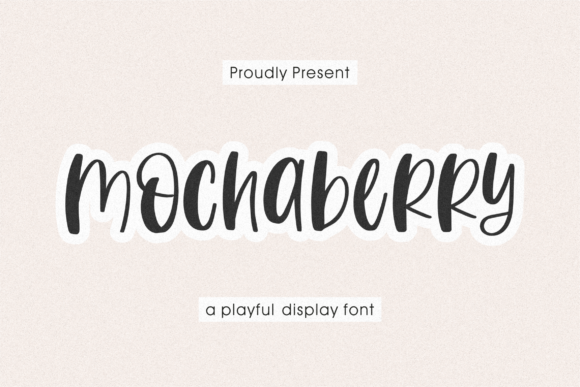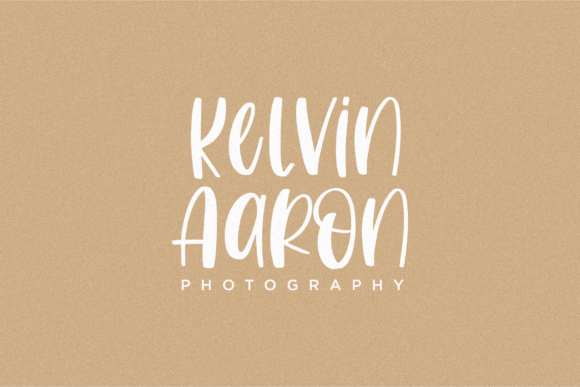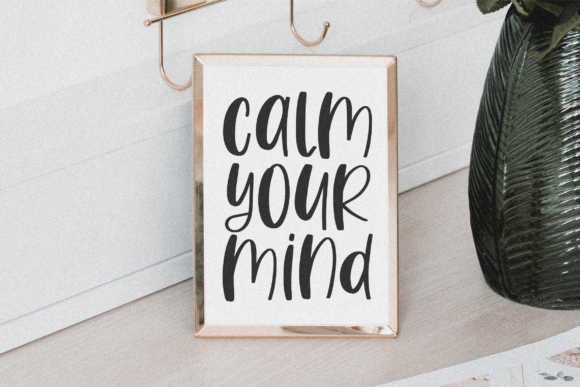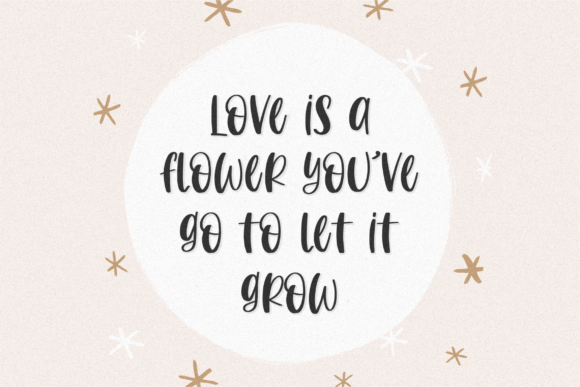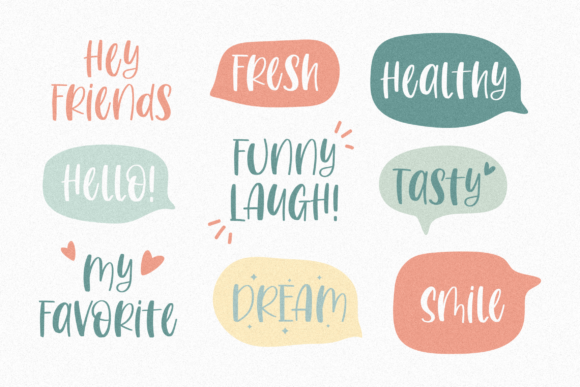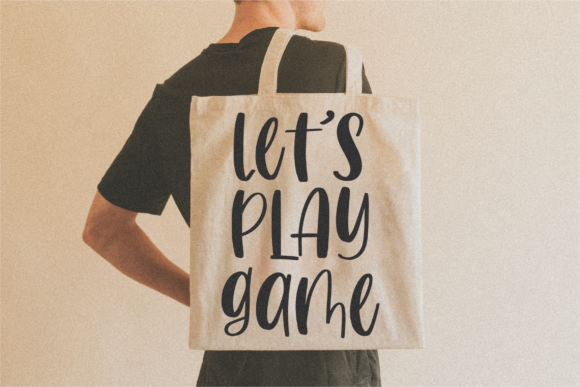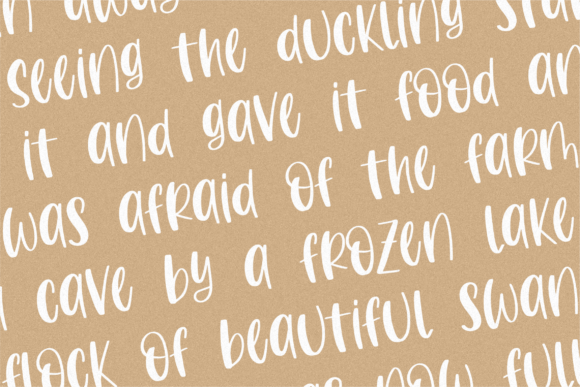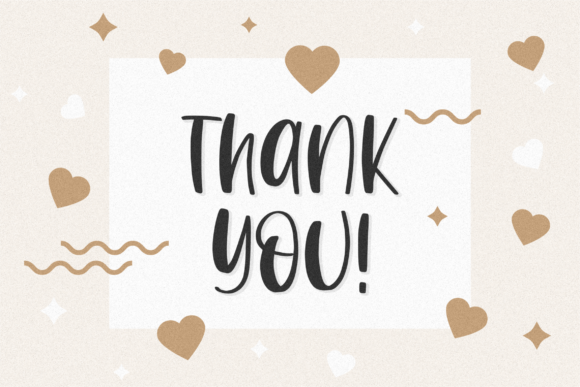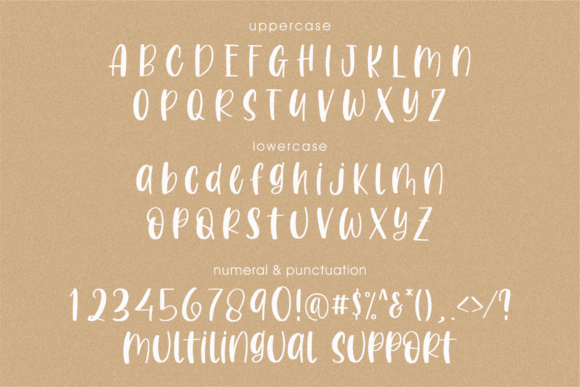
Mochaberry Font
About Mochaberry Font
Mochaberry is a simple, quirky and adaptable handwritten font. Its informal style and casual vibe will make this font a go-to choice for each of the creations that require a relaxed touch.